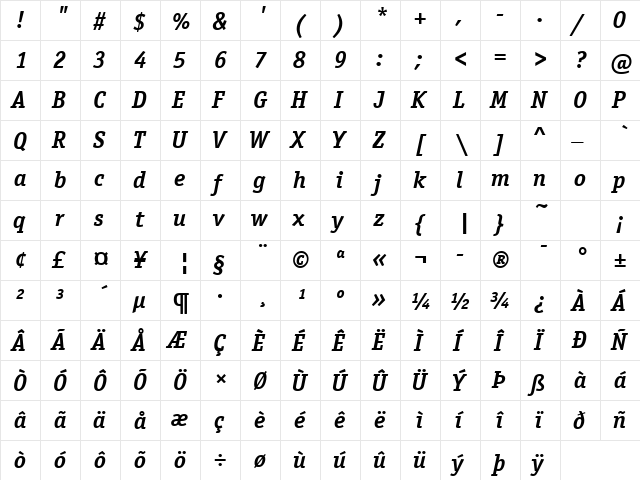
Officina Serif ITC TT BoldIta
Design Context for Officina Serif ITC TT Typeface
Officina Serif ITC TT brings classic typographic sensibility to the table — its serifs and measured letterforms reflect centuries of print heritage. The heavy weight commands attention and anchors typographic hierarchies.